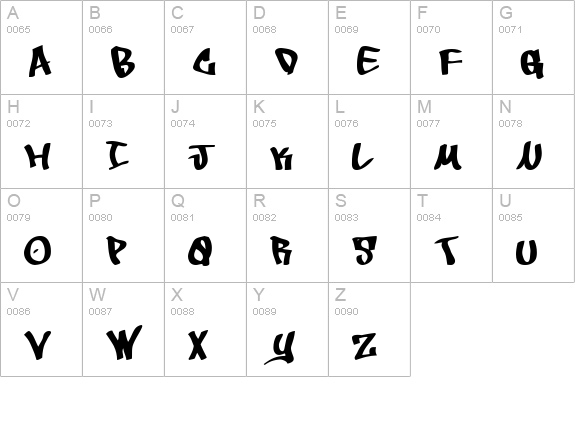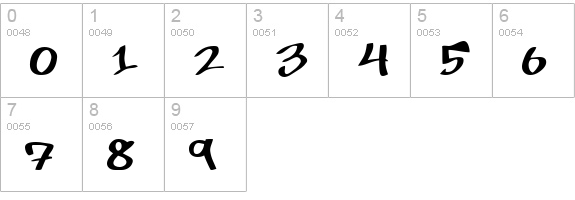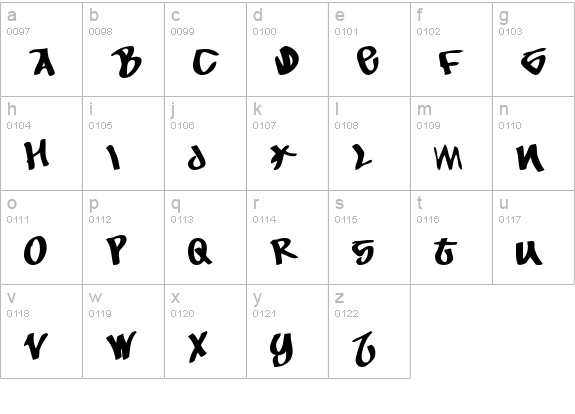
To Be Continued is a free for personal use font in the Script > Graffiti category. It has been downloaded 137 times and is available for Windows, Mac and Linux.
To Be Continued font is a visually striking and captivating typeface that will keep your audience on the edge of their seats. Its unique design and intricate details make it perfect for creating suspenseful and thrilling designs. Every letter is carefully crafted to draw attention and create a sense of anticipation. This font is not only aesthetically pleasing, but it is also incredibly versatile. Whether you're designing a movie poster, a book cover, or a promotional flyer, To Be Continued font will add a touch of excitement and intrigue to your project. What sets To Be Continued font apart from other fonts is that it is available for free. Yes, you heard that right - this incredible font is freely available to download at FontsMarket.com. You don't have to worry about breaking the bank to access this high-quality font. It's a wonderful opportunity to enhance your designs without any cost. Don't miss out on the chance to make your designs stand out with the captivating To Be Continued font. Download it for free today at FontsMarket.com and let your creativity run wild.